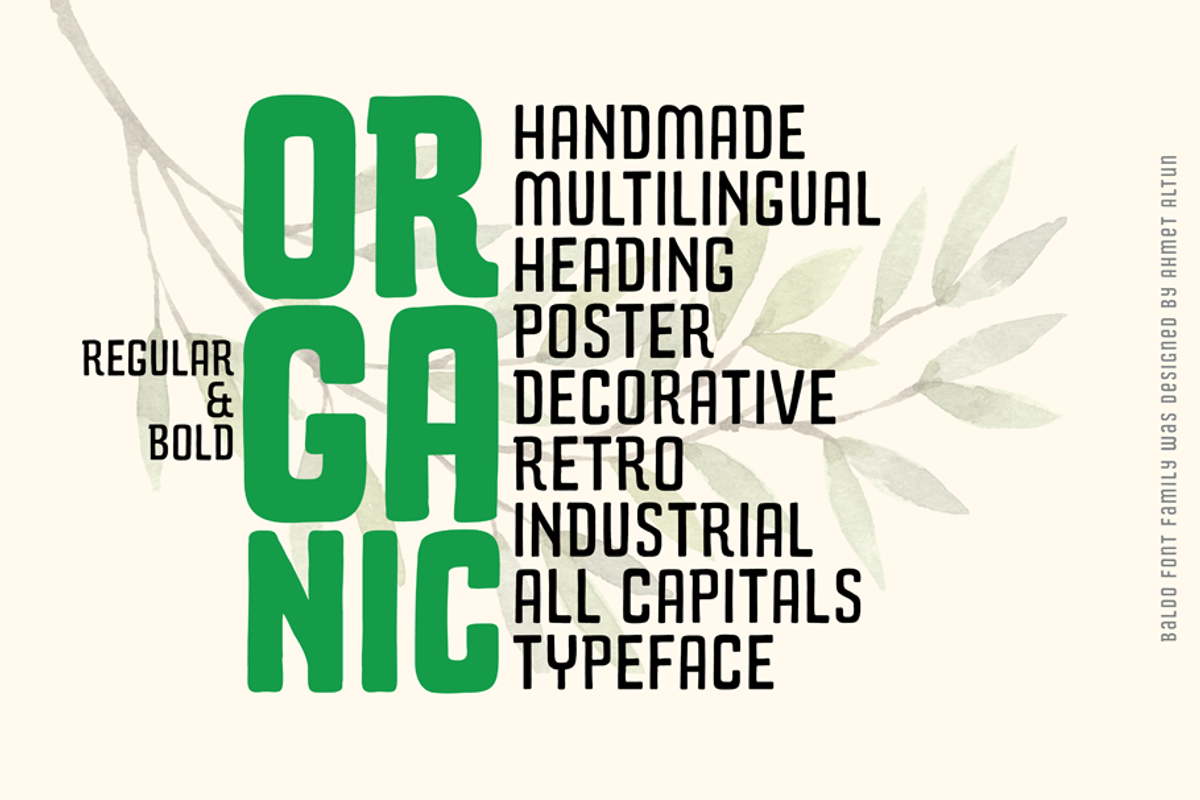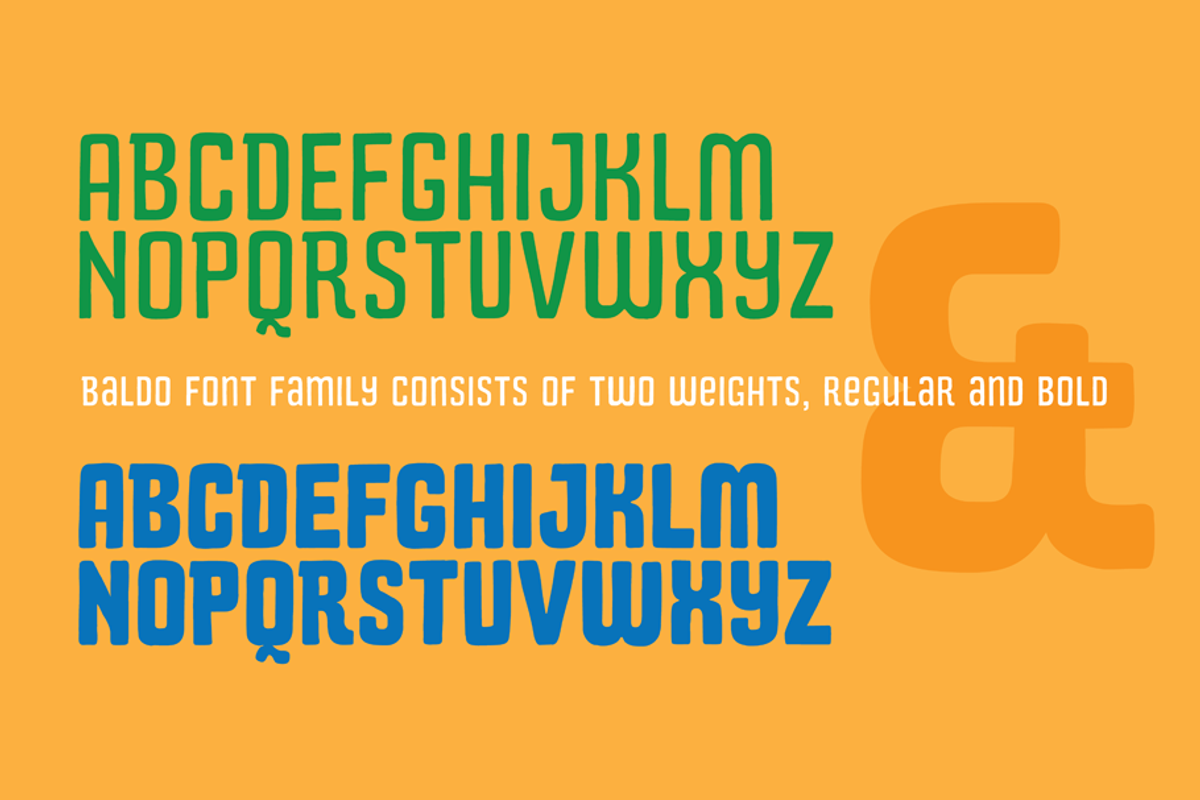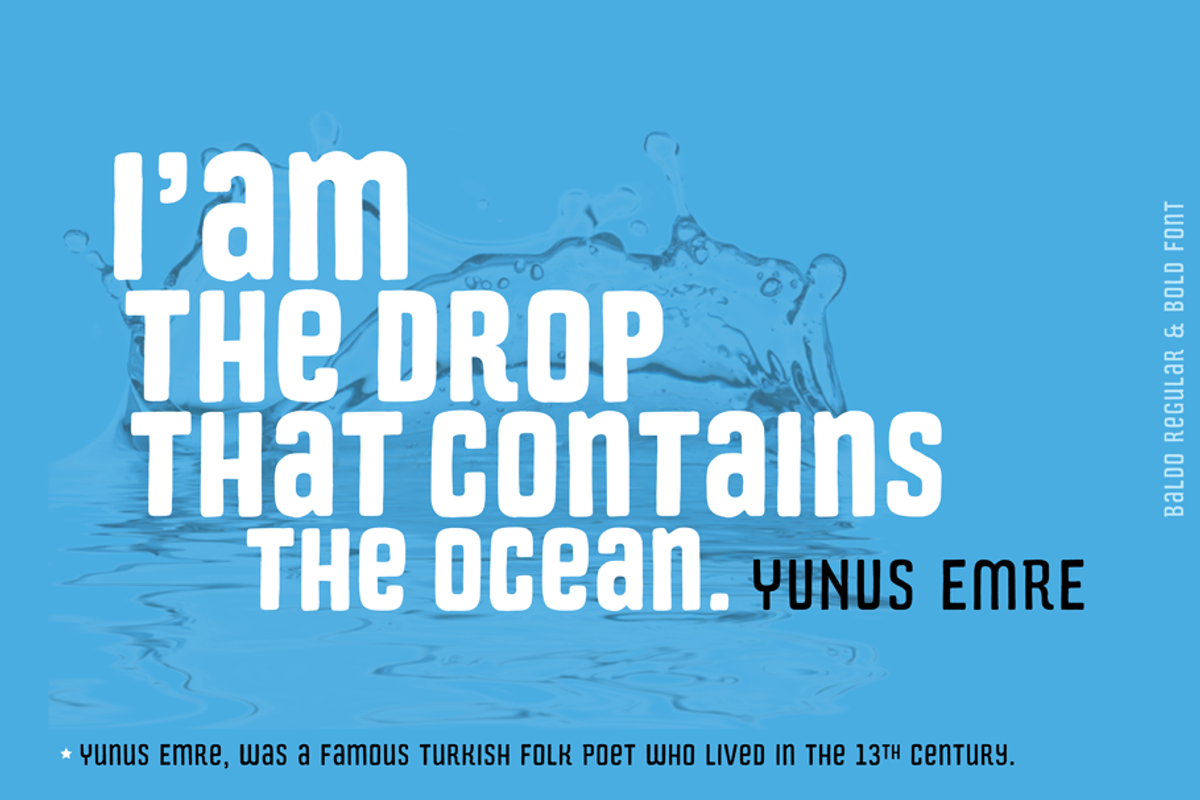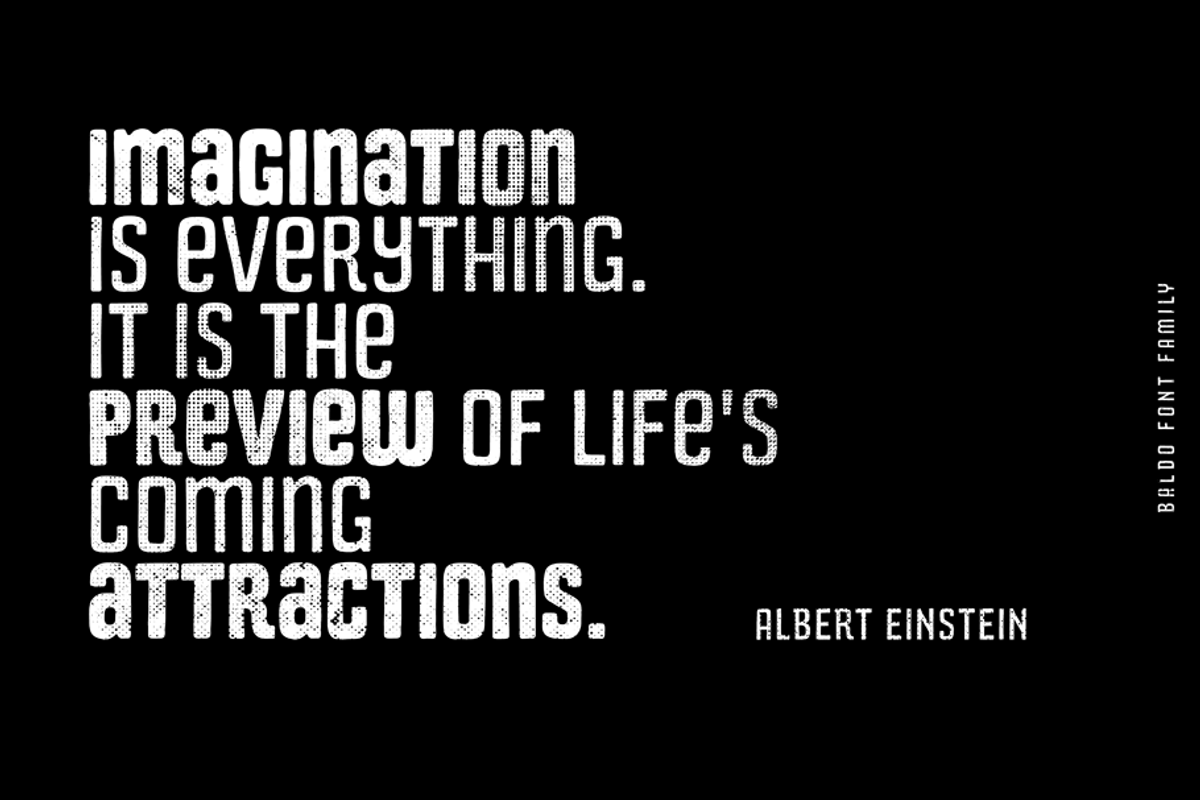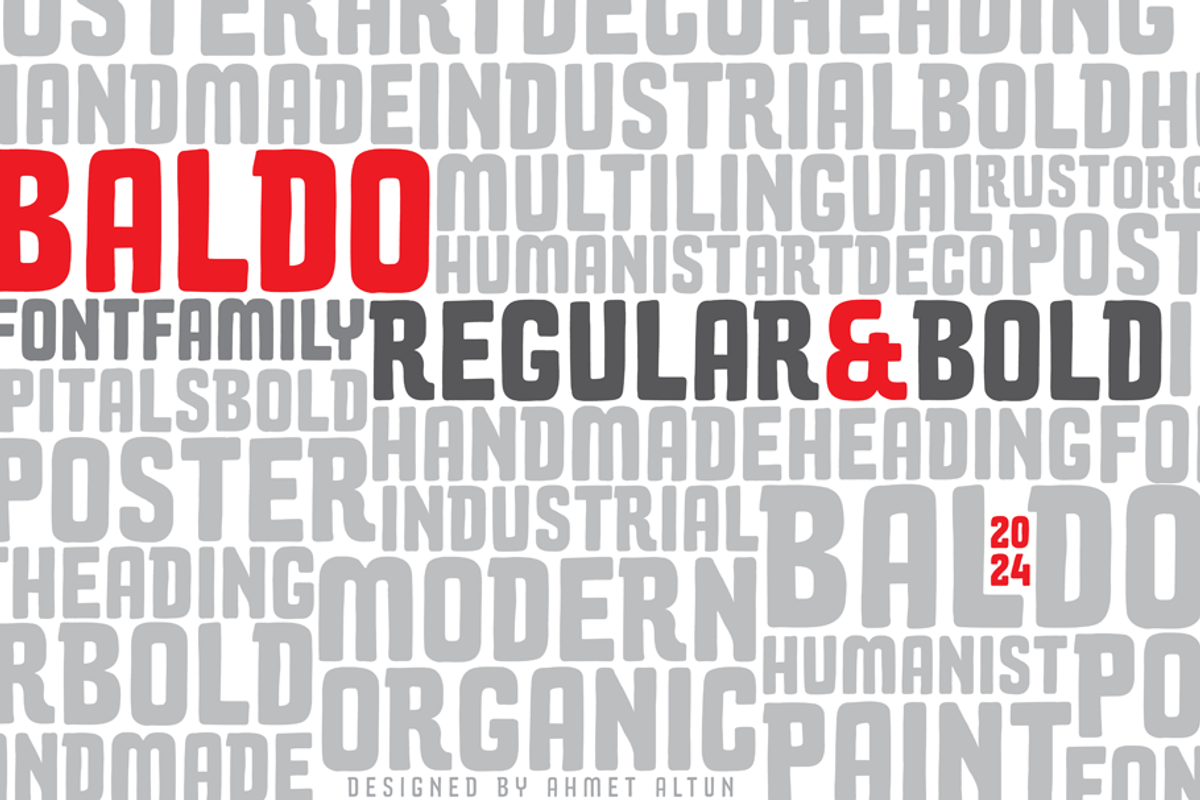
Baldo Font Family
Baldo font family consists of two fonts, regular and bold. It was created by hand drawn and converted to vector. Baldo font family can be a perfect choice for your great and flashy headlines, posters and all kinds of graphics.